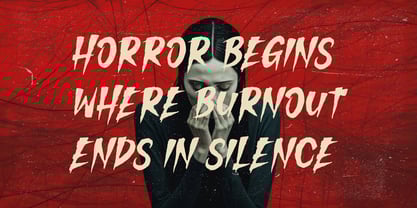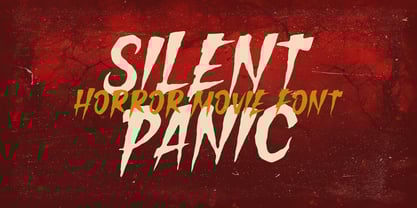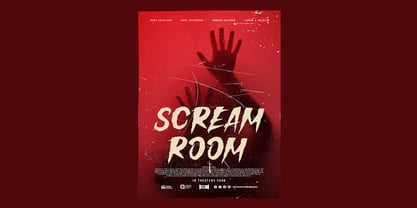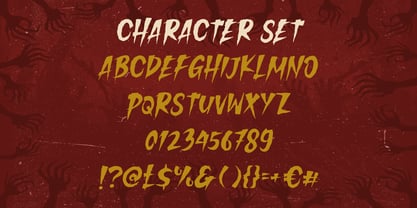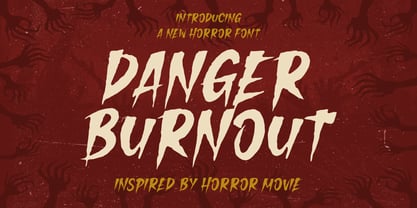
Danger Burnout
by Shanaf
The Danger Burnout Font Family was designed by Yesie Erma Yunita and published by Shanaf. Danger Burnout contains 1 styles. More about this family
Danger Burnout is a spine-chilling horror movie font designed to invoke fear, suspense, and cinematic thrill. Its sharp, jagged strokes mimic the scratchy, chaotic feel of panic and terror, making it perfect for horror titles and Halloween-themed designs. Each letter appears as though it’s been torn or clawed onto the screen, enhancing the sense of urgency and danger. The uppercase and lowercase characters are bold and irregular, allowing maximum visual drama and readability even from a distance. The font is inspired by classic horror aesthetics, enriched with distressed elements and blood-dripping edges.
This typeface excels in creating high-impact visuals for posters, movie titles, Halloween branding, book covers, and eerie social media content. Its gritty texture and aggressive styling make it ideal for scream-worthy headlines and horror-centric merchandise. Whether you’re working on a haunted house flyer or a spooky game UI, Danger Burnout will instantly amplify the fear factor in your design. Use it to captivate, disturb, and unleash a story without saying a word.